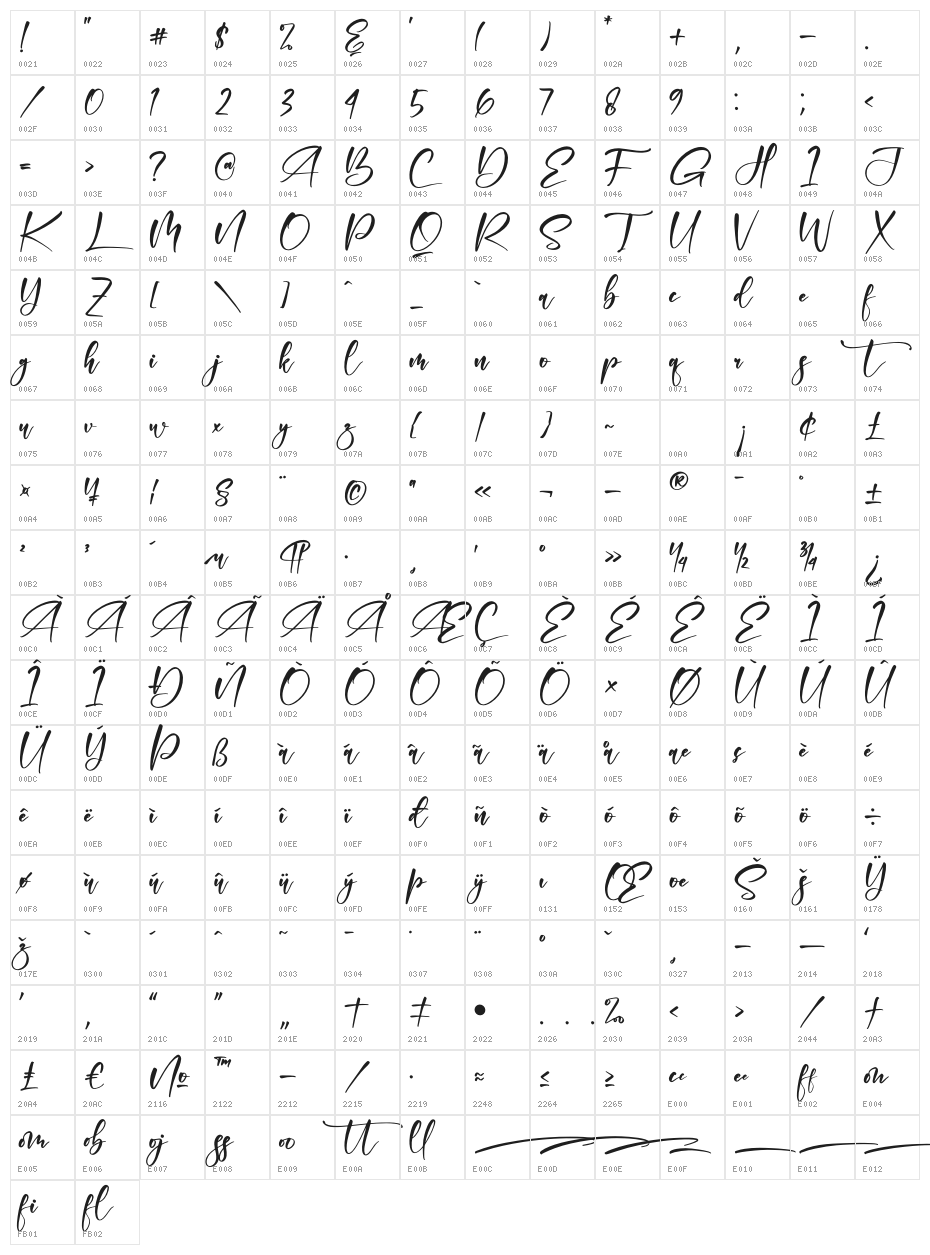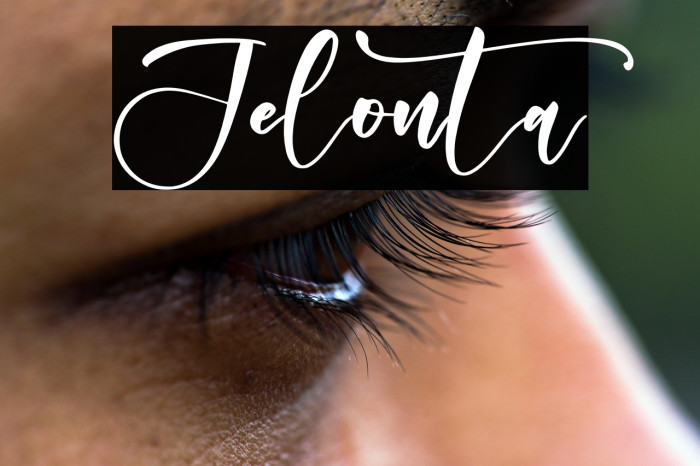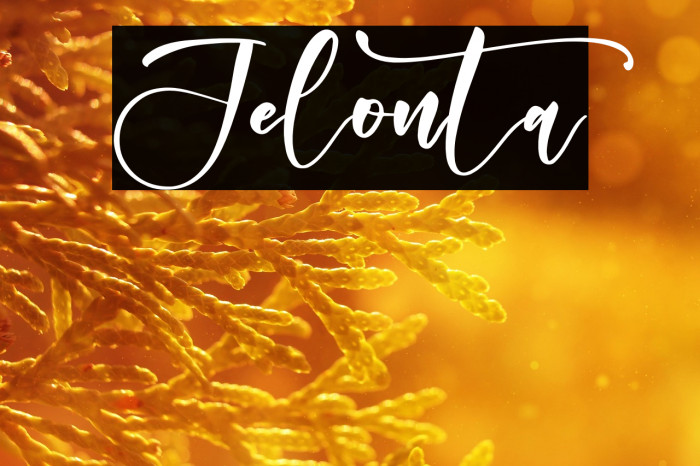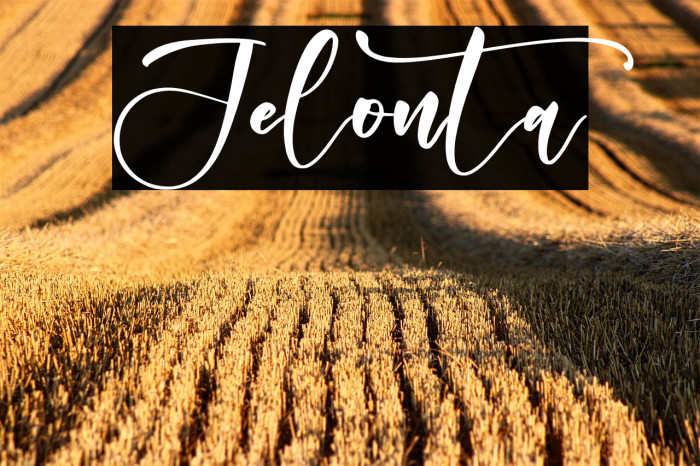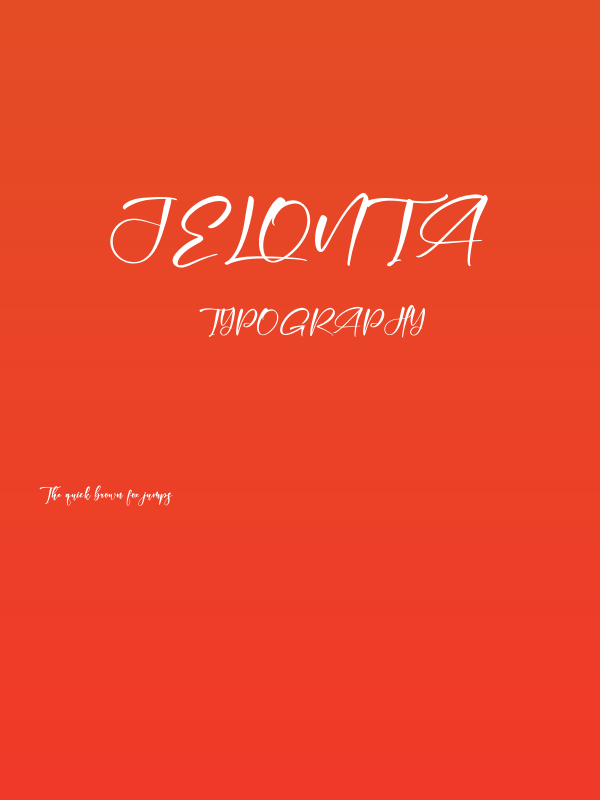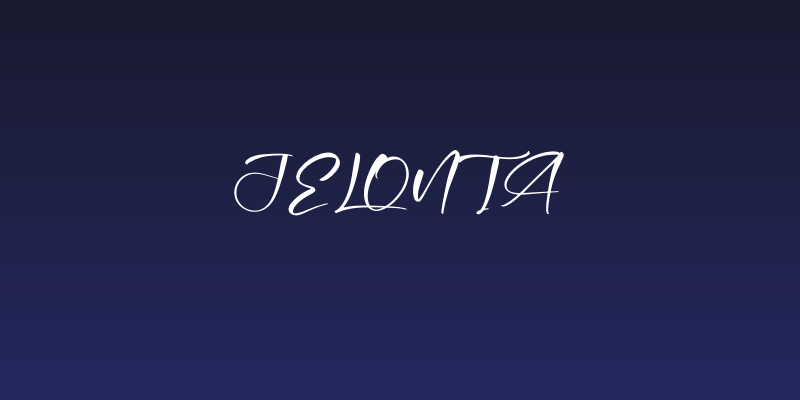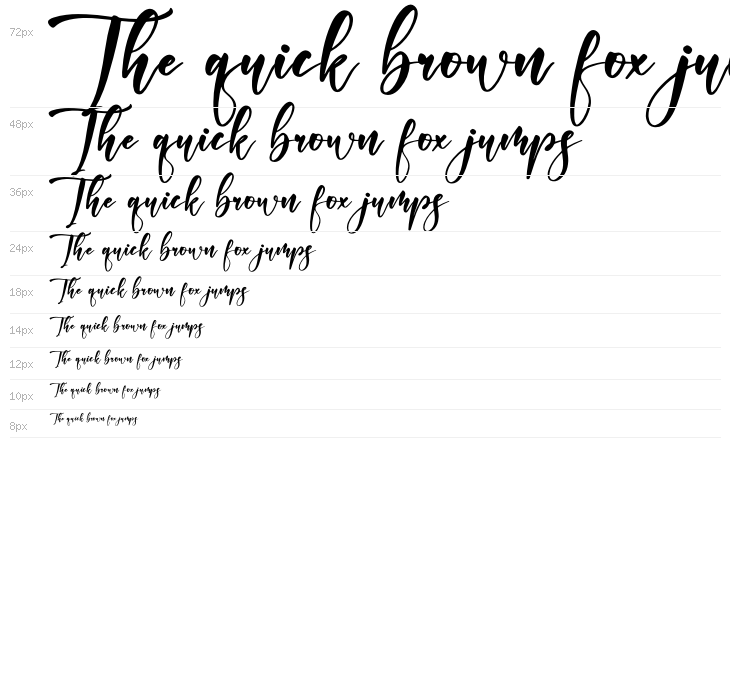
Jelonta Font
Jelonta Description
This font exudes a lively and expressive character with its flowing, cursive style. The uppercase letters are bold and dynamic, featuring elegant loops and swashes that add a sense of movement and flair. The lowercase letters maintain a consistent rhythm, with some characters extending below the baseline, enhancing the font's playful nature. The numerals are bold and slightly slanted, complementing the overall energetic feel. Special characters are creatively designed, with unique flourishes that make them stand out. This font is perfect for projects that require a touch of elegance and creativity.